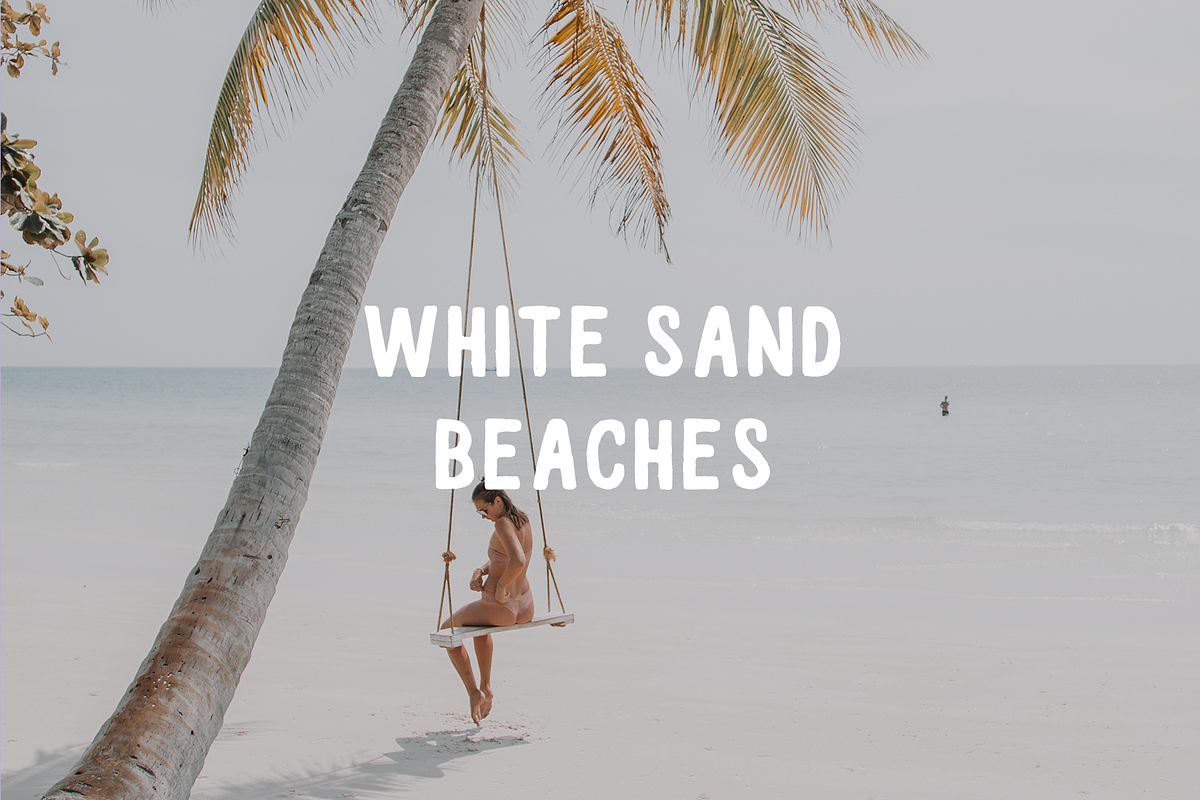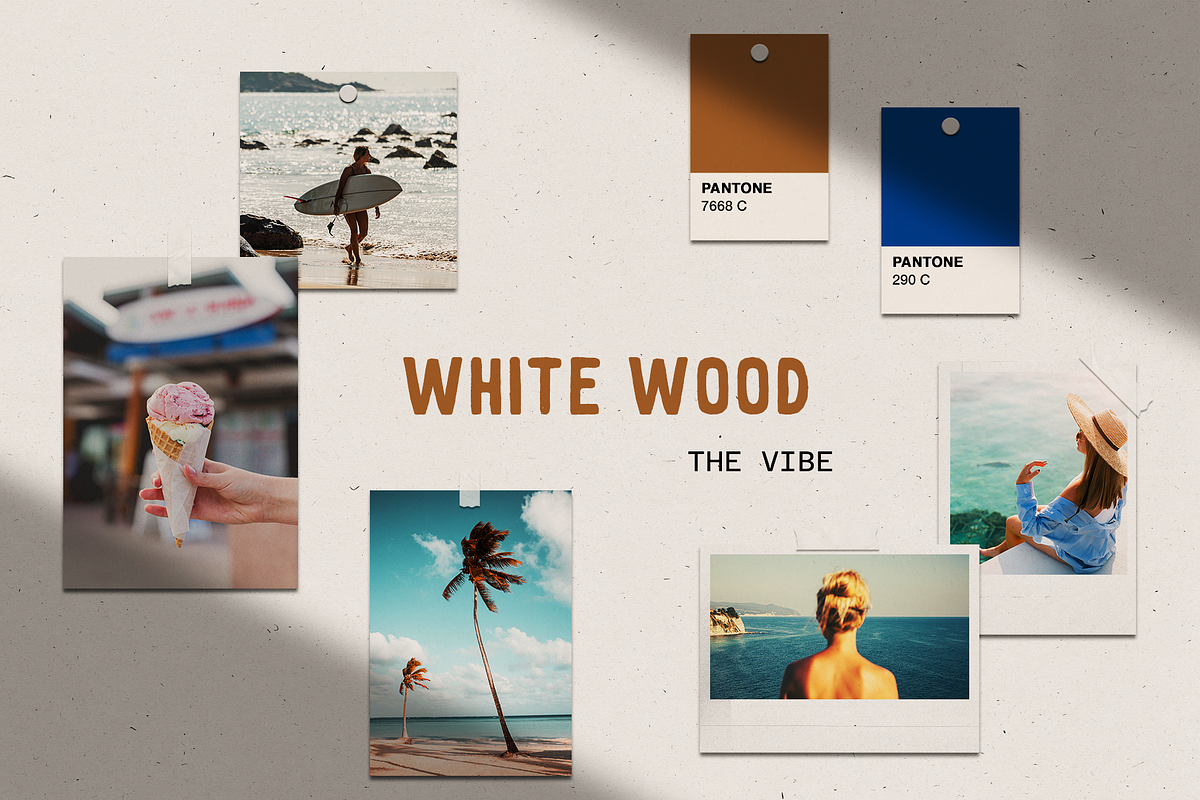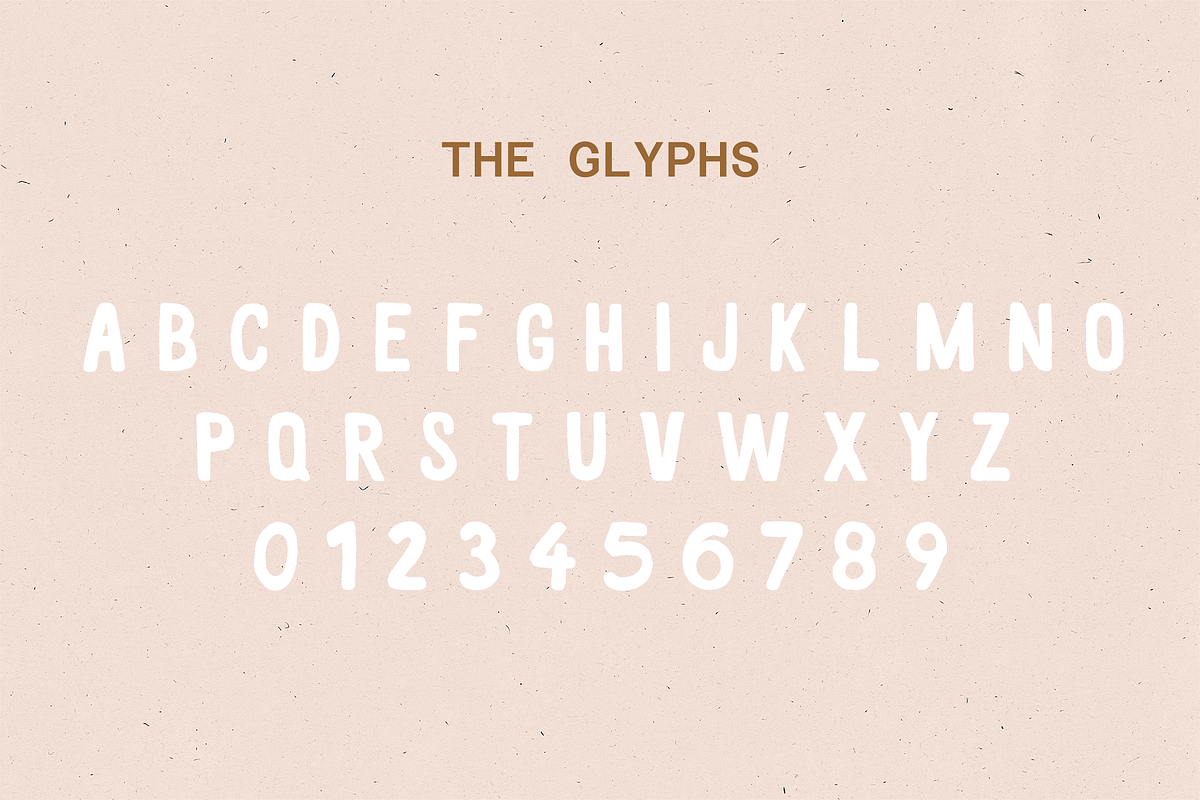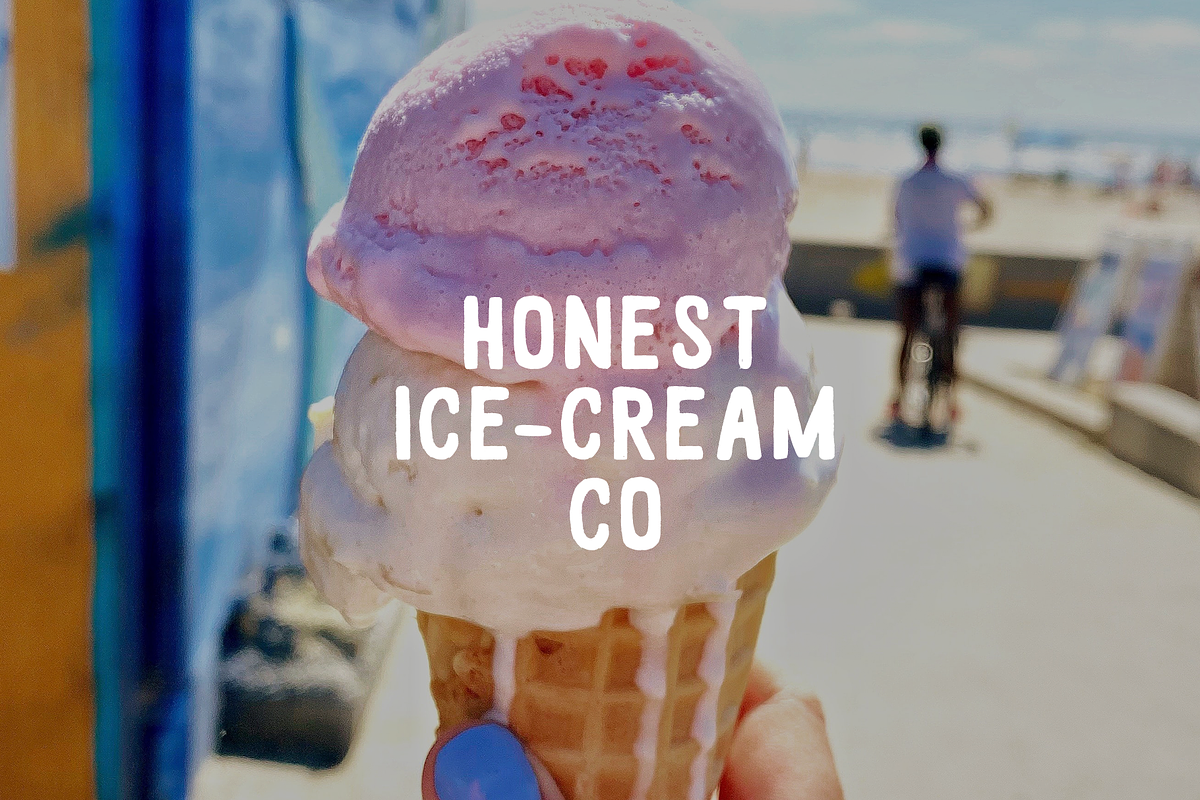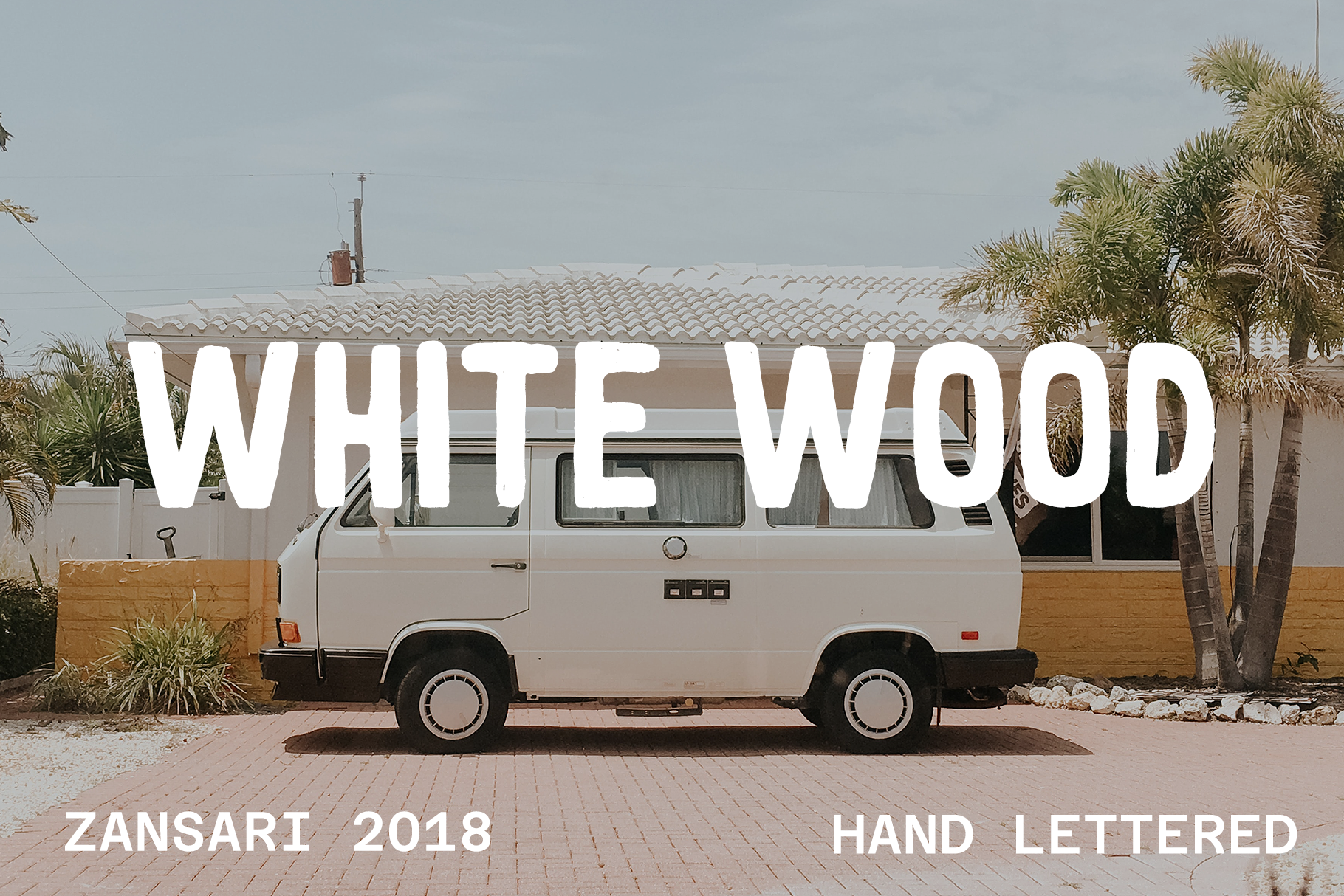
White wood hand drawn font
White wood hand drawn font is an all caps adventurous styled font. The characters were hand painted, then scanned and vectorised into a digital font file. Surfer Bay brush font was designed by Zansari font foundry in Auckland, New Zealand
This font would be perfect for advertisements, logos and crafts like quote posters. This has also been quite a popular blog font